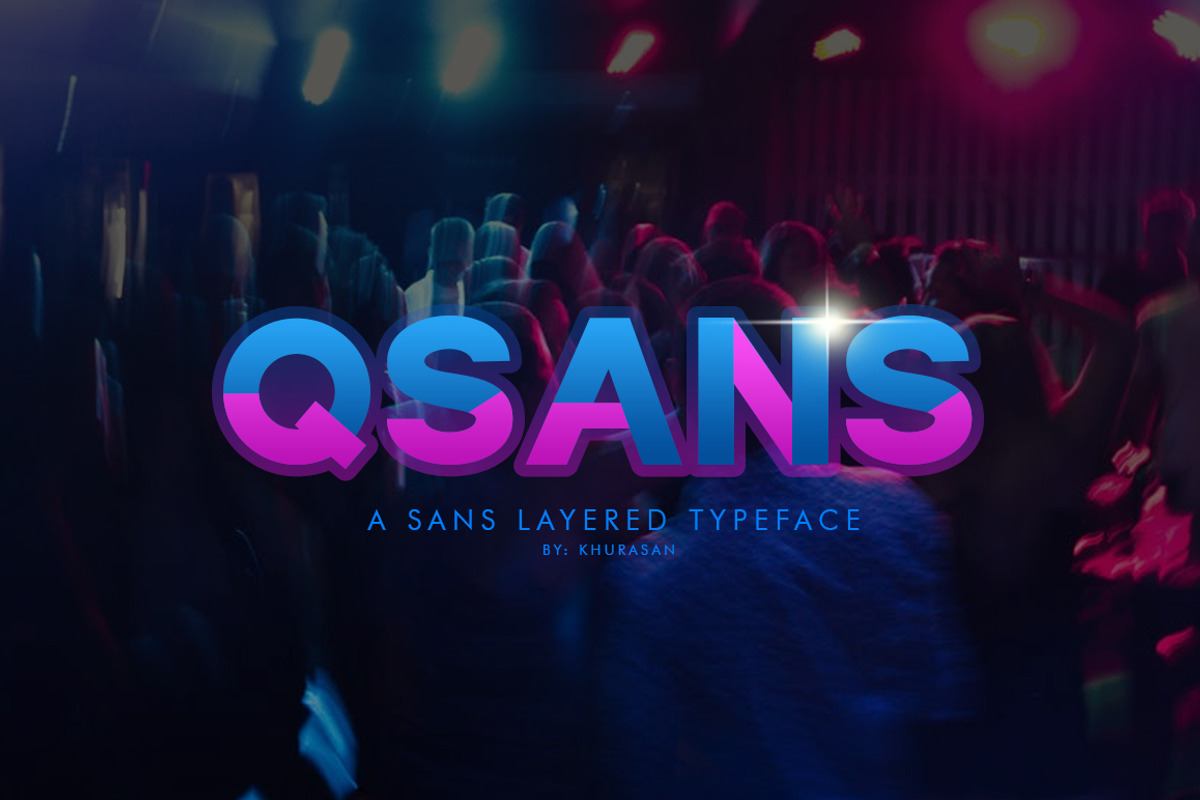
Qsans Layered Font Free Download is a bold and versatile typeface that brings depth and dimension to your design projects. Please note, you are required to purchase this font for commercial use. It is available for free download for testing and personal projects only.
Designed with a layered system, Qsans allows you to mix and match styles for dynamic visual effects—perfect for posters, logos, apparel, headlines, and branding projects that demand attention. Its clean geometry and customizable layers make it ideal for both retro and modern aesthetics.
Choosing Qsans Layered Font Free Download gives you access to a powerful design tool that works seamlessly across major design platforms. Installation is quick and easy, letting you start experimenting right away. If you want to add a fresh, dimensional look to your typography, Qsans delivers the impact you need with creative flexibility.